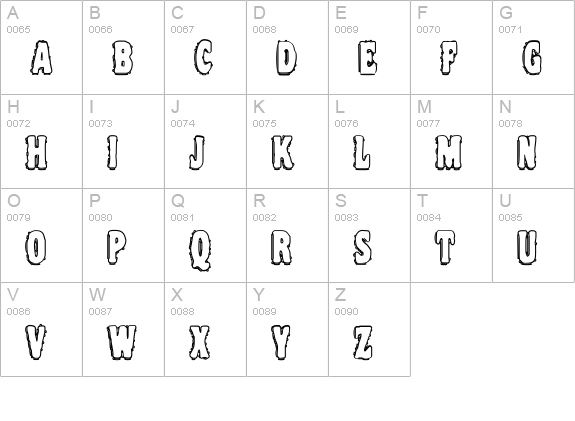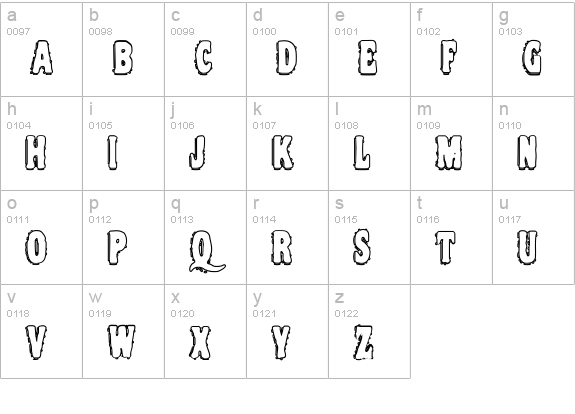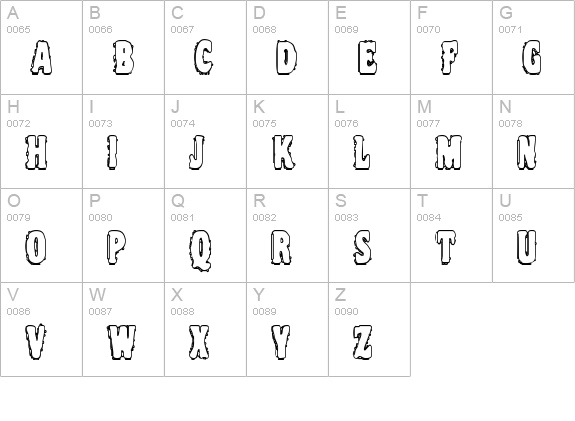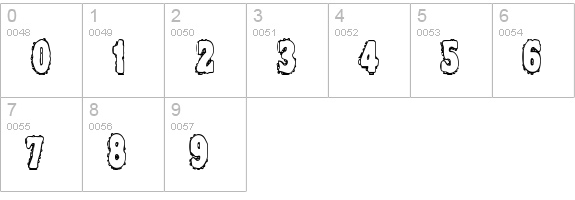
VTC NightOfTheDrippyDeadOuttie font is a unique and spooky typeface that is sure to grab attention. With its dripping, decayed appearance, this font perfectly captures the essence of Halloween and all things creepy. Each letter is intricately designed to resemble a zombified version of a traditional font, giving it a truly undead aesthetic. But what sets VTC NightOfTheDrippyDeadOuttie font apart is that it is not only visually stunning, but it is also free! That's right, this hauntingly beautiful font is freely available to download at FontsMarket.com. Whether you're designing party invitations, creating spooky graphics, or simply adding an eerie touch to your project, VTC NightOfTheDrippyDeadOuttie font is the perfect choice. Its versatility makes it suitable for a wide range of design projects, from posters and flyers to social media graphics and website headers. It adds a touch of macabre charm to any text, making it stand out and leave a lasting impression. So why wait? Embrace the dark side and unleash your creativity with VTC NightOfTheDrippyDeadOuttie font. Download it for free at FontsMarket.com and let your imagination run wild. Whether you're a professional designer or a Halloween enthusiast, this font is sure to become a favorite in your collection. Don't miss out on the opportunity to add a touch of spookiness to your next project. Get VTC NightOfTheDrippyDeadOuttie font today and let the undead inspire your creativity.